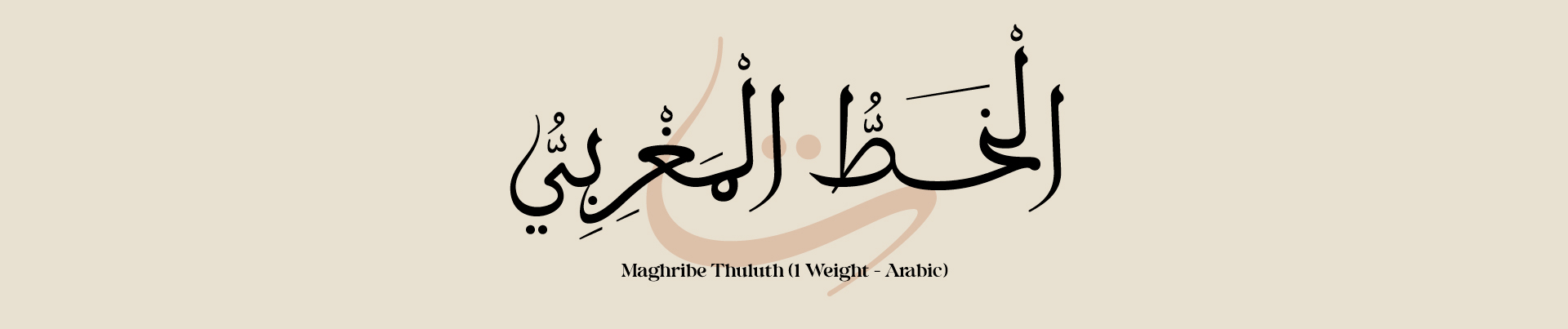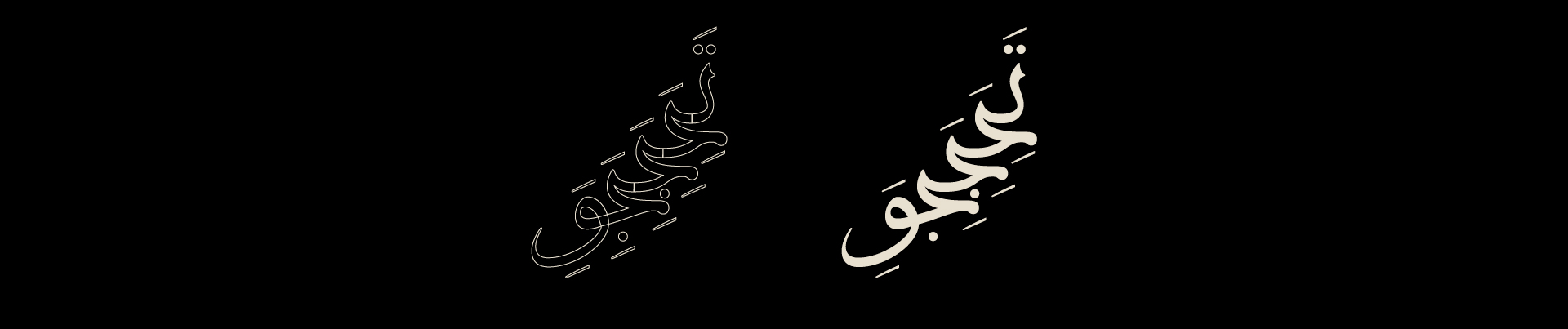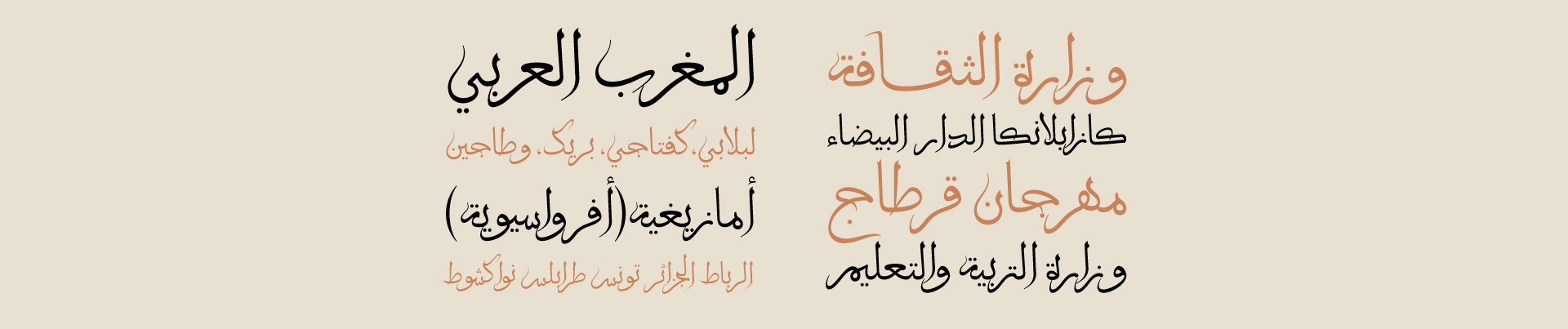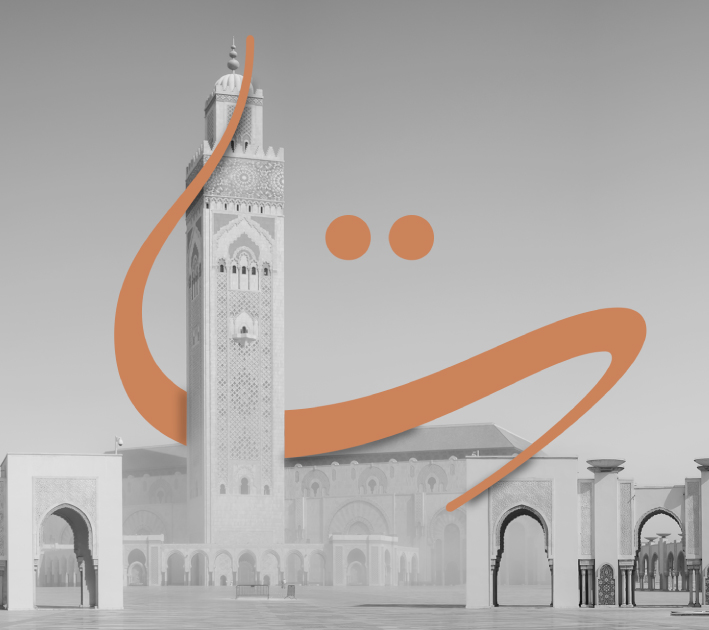
About Maghribe Thuluth Font
Introdaction:
Maghrib Thuluth is a style of Arabic calligraphy that originated in North Africa and is known for its large size and ornate design. The first step in designing the Maghrib Thuluth font was to study the basic principles of the style.
This includes understanding the proportions and shapes of the individual letters, as well as the overall structure of the script. Maghrib Thuluth is characterized by its large size and ornate lines; the challenge was how to create a digital version of this style that maintains these characteristics. For two years, we worked to develop this font, study the shapes of the letters, find solutions in drawing and engineering them, and add the flexible kashida. We are very proud to launch the first digital version of this script.
Weights & Supported languages:
1 weight, supports Arabic.
Usages:
Headlines, posters, websites, social media, and visual identities.